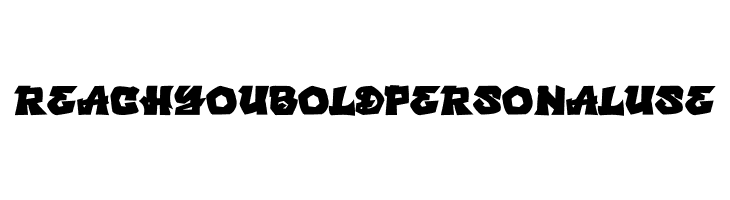
A bold, graffiti-inspired font with angular and edgy characters.
A bold, graffiti-inspired font with sharp, angular edges.
A bold, graffiti-inspired font with angular, energetic characters.